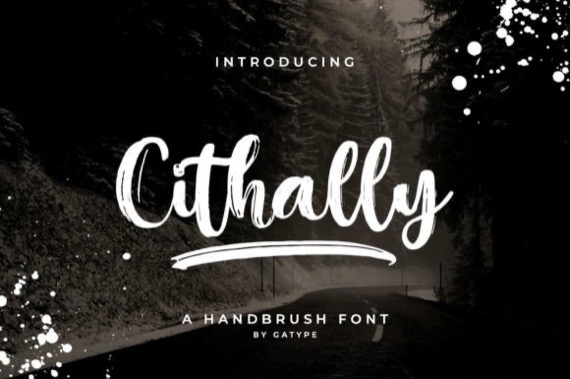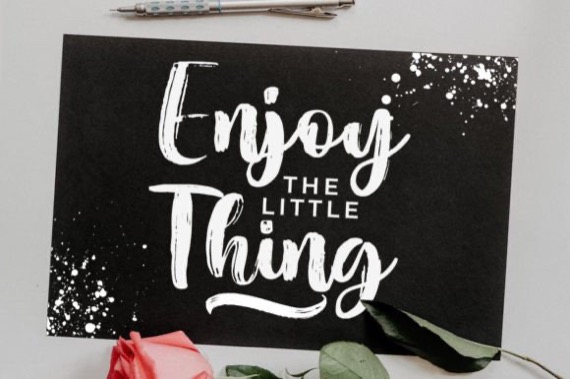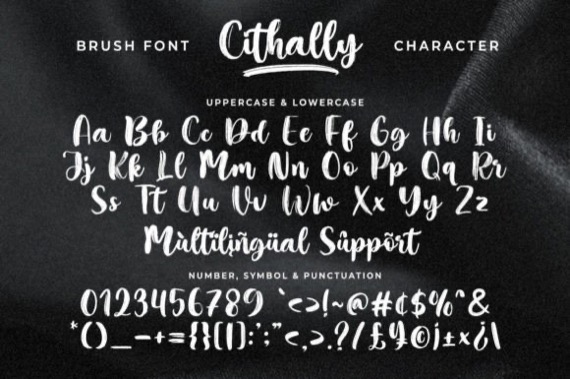
Cithally is an elegant handwritten script font that has a classy brush style with a distinctive and sharp brush texture. It is perfectly used for projects such as stationery invitations, social media, logos, weddings, branding, graphic designs and more.
Cithally Brush Handwritten Font